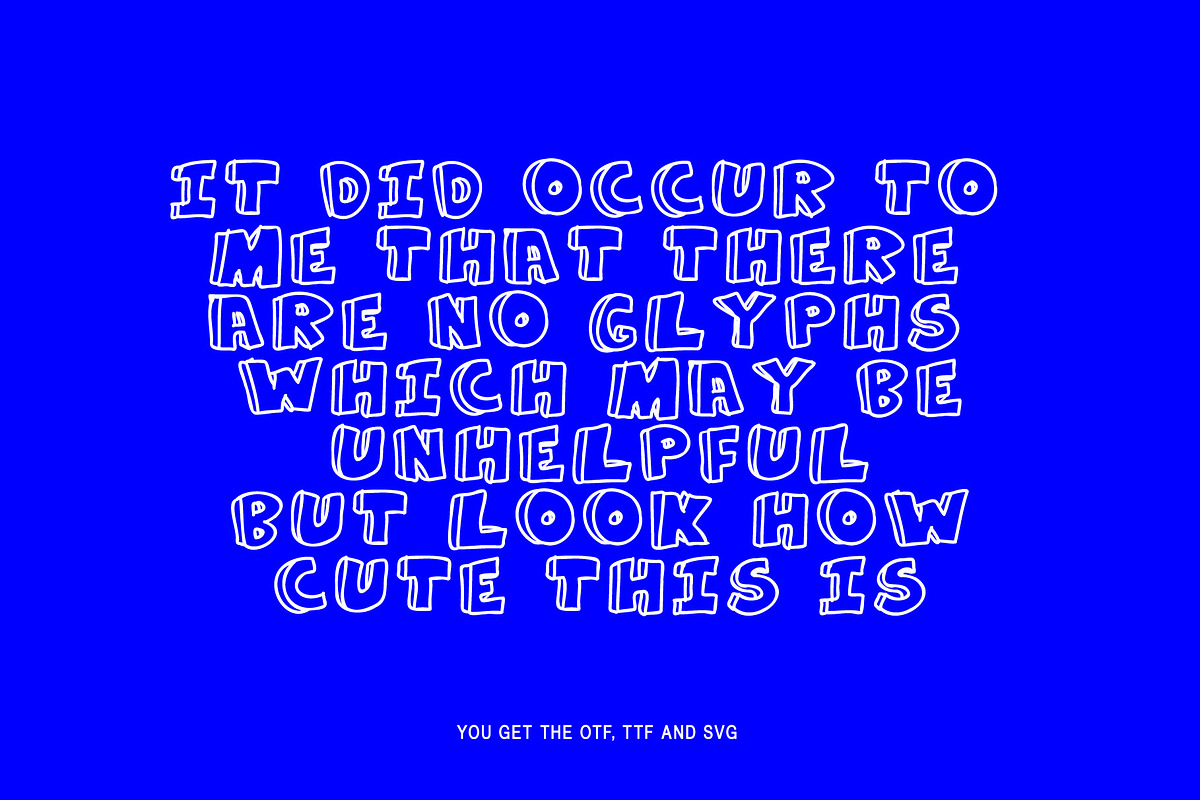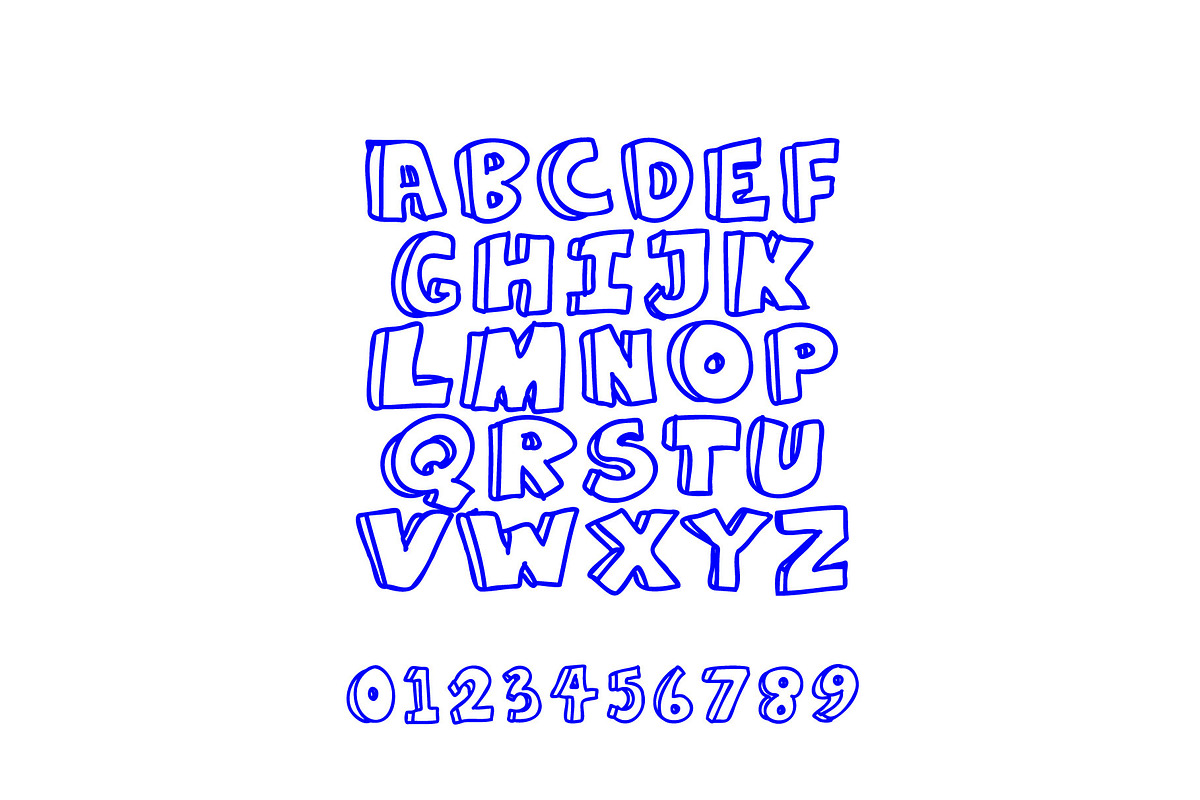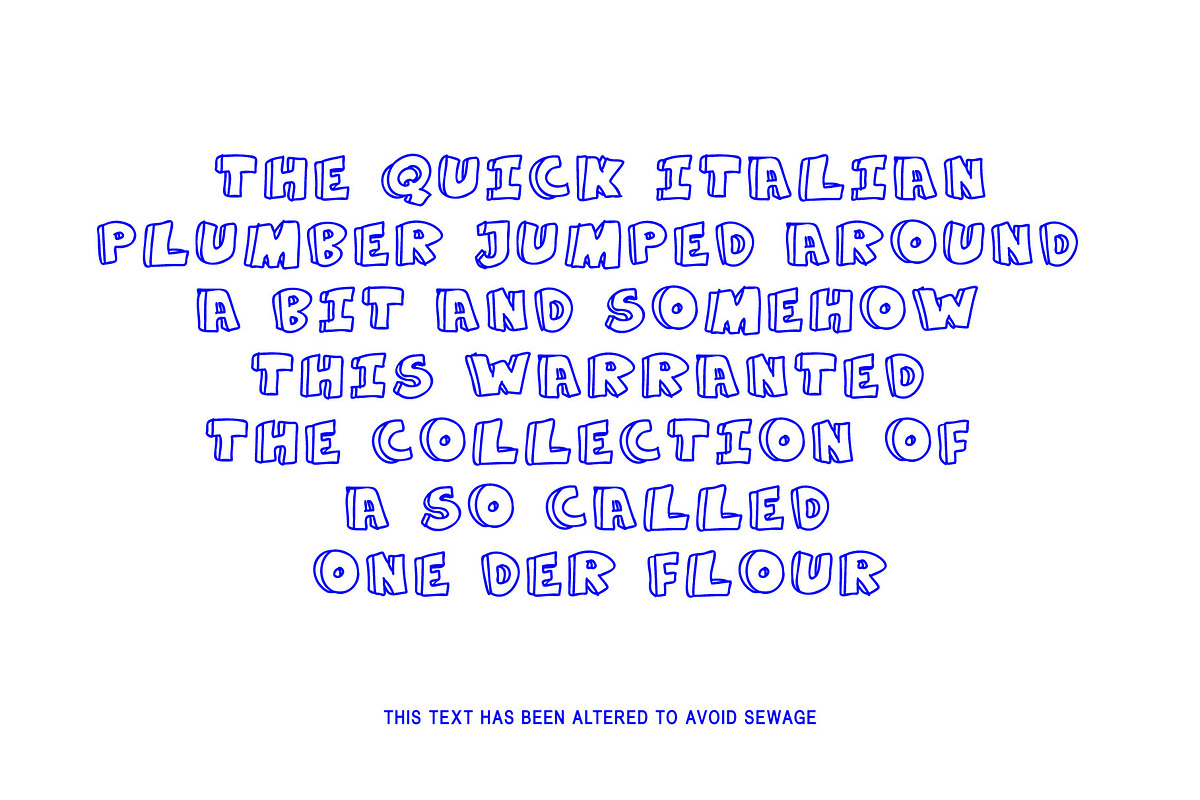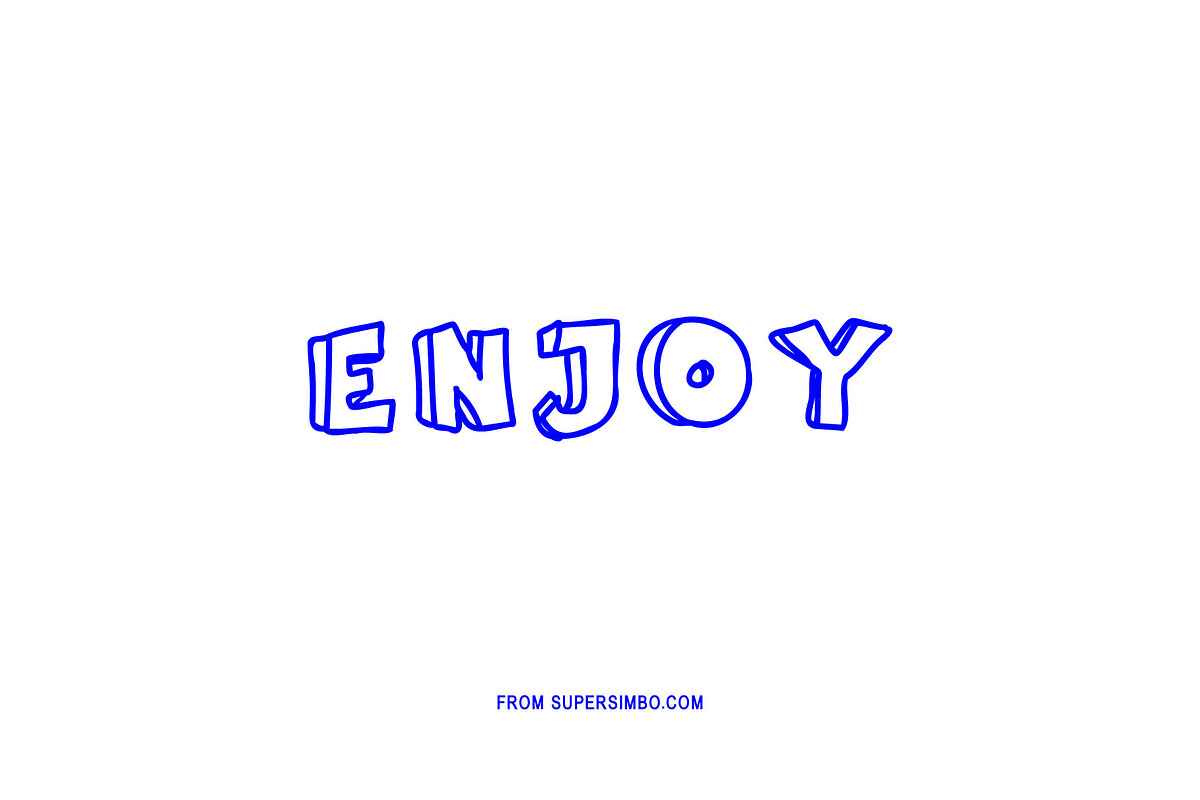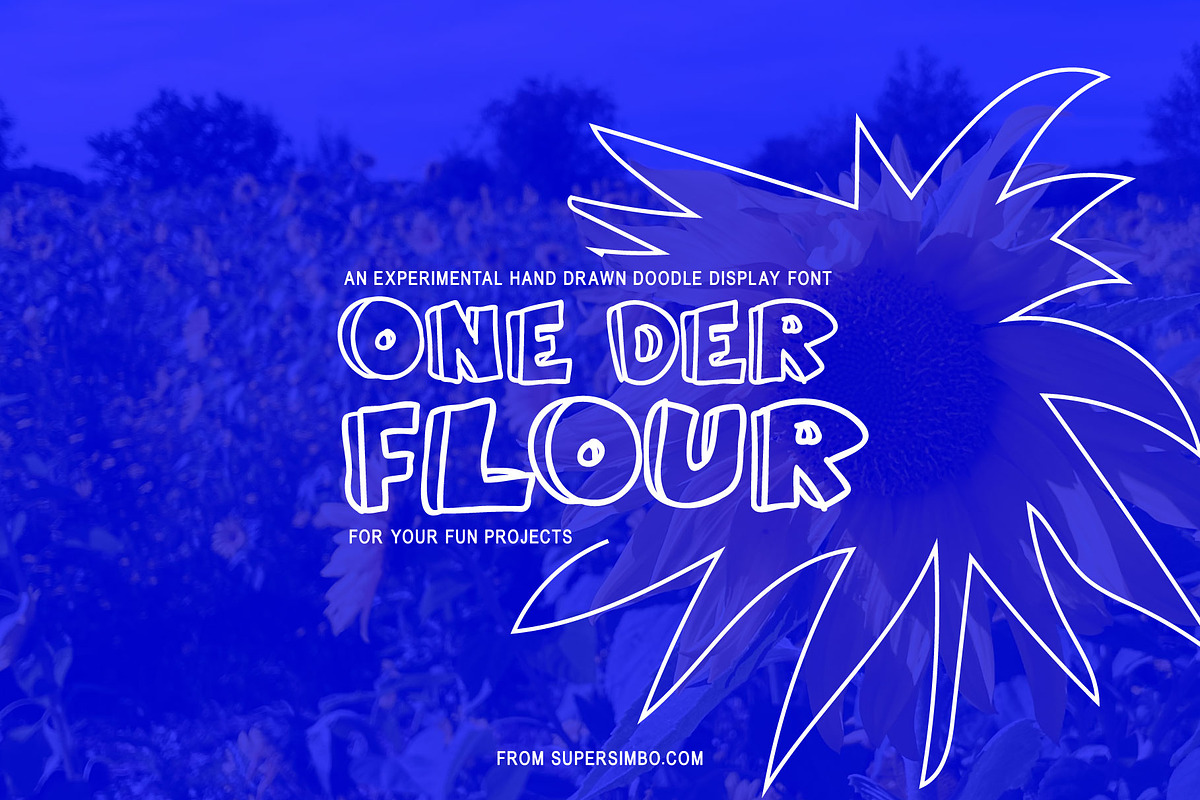
One Der Flour
Level up your designs with One Der Flour – a bold, playful hand-drawn typeface inspired by the iconic world of Super Mario! This character-packed font captures the nostalgia of classic Nintendo games, bringing a sense of fun, adventure, and retro charm to your creative projects. Perfect for posters, gaming events, kids' designs, merchandise, and anything that needs a pop of personality.
Features: 🎮 Hand-crafted, playful letters and numbers ⭐ Bold and dynamic – jumps off the page! 🪄 Perfect for logos, headlines, and invitations
Add a touch of 8-bit magic to your designs with One Der Flour and let your creativity power-up!